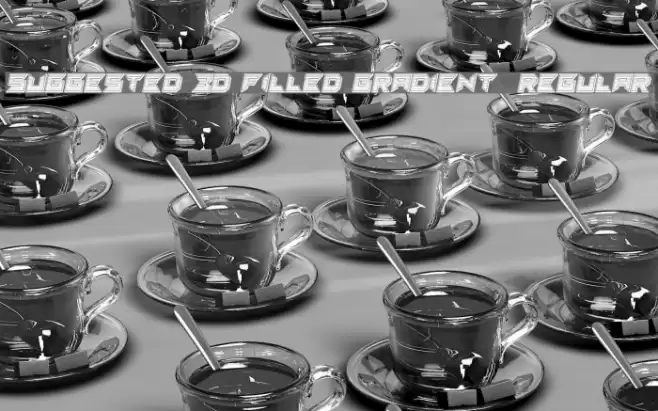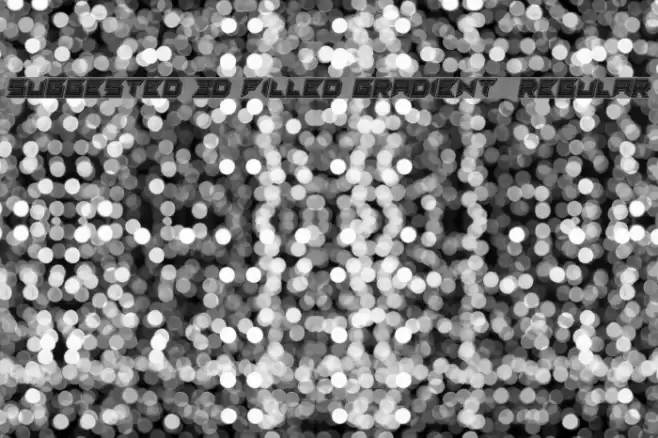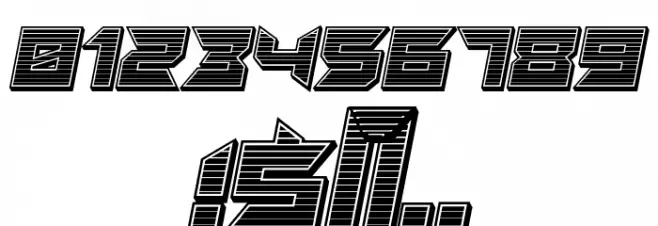
Suggested 3d Filled Gradient Regular Font
Suggested 3d Filled Gradient Regular Description
This font features a bold, three-dimensional design with a filled gradient effect, creating a striking and dynamic appearance. The characters are constructed with sharp, angular lines and a layered look that gives a sense of depth and movement. The uppercase letters are particularly prominent, showcasing a futuristic and edgy style. The numbers and special characters maintain the same bold and layered aesthetic, ensuring consistency across all glyphs. This font is ideal for projects that require a strong visual impact and a modern, tech-inspired look.
A bold, 3D font with a filled gradient effect and angular design from Uncategorized fonts.
- Proposed Projects: Ideal for video game titles, tech-themed posters, futuristic branding, and eye-catching headlines.